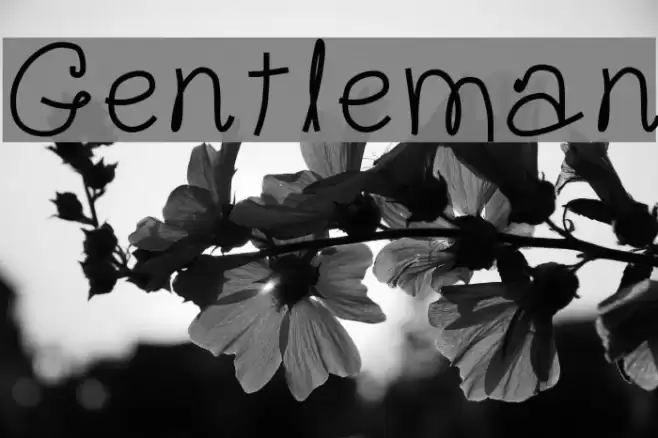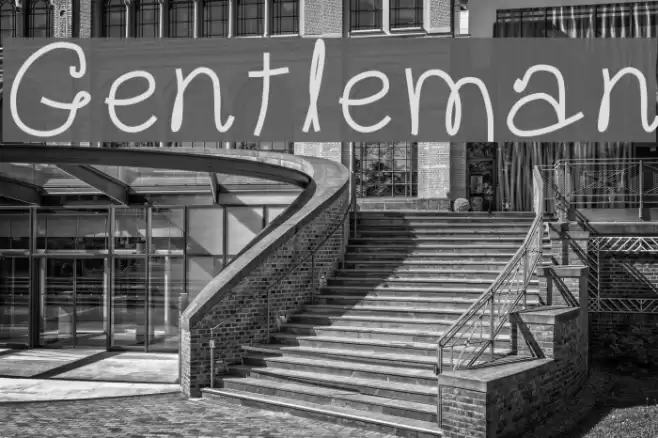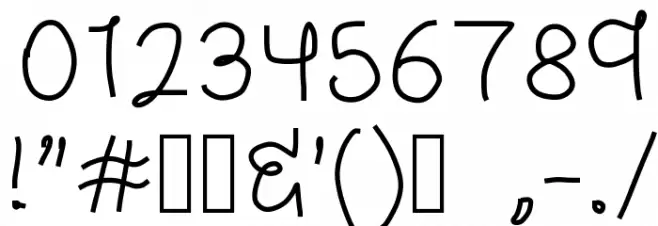
Gentleman Font
Gentleman Description
This whimsical and playful font features a hand-drawn style with a unique and quirky character design. Each letter has a distinct personality, with some incorporating spiral or looped elements, adding to its charm. The strokes are uneven, giving it an organic and informal feel. The font includes both uppercase and lowercase letters, numbers, and a variety of special characters. Its irregular shapes and playful curves make it ideal for creative and artistic projects.
A whimsical, hand-drawn font with playful, quirky characters from Handwritten fonts.
- Proposed Projects: Ideal for children's books, creative posters, playful branding, and artistic invitations.
- Overall Style: Playful
- Use Case: Headlines, Logos, Creative projects